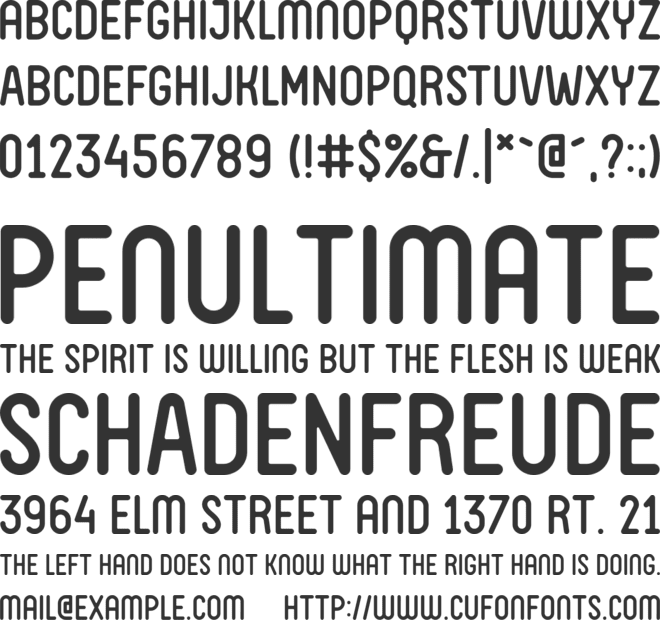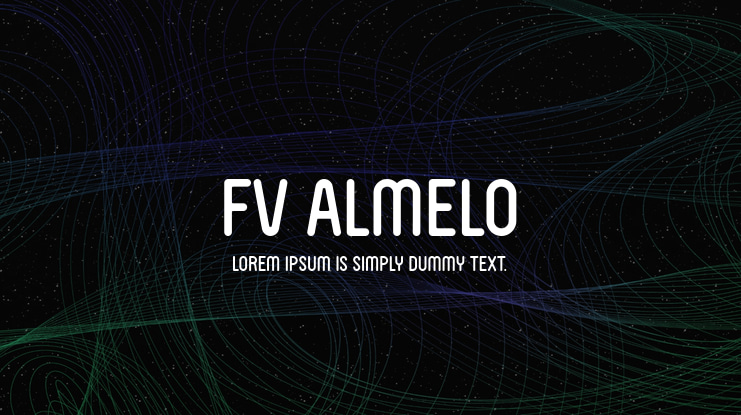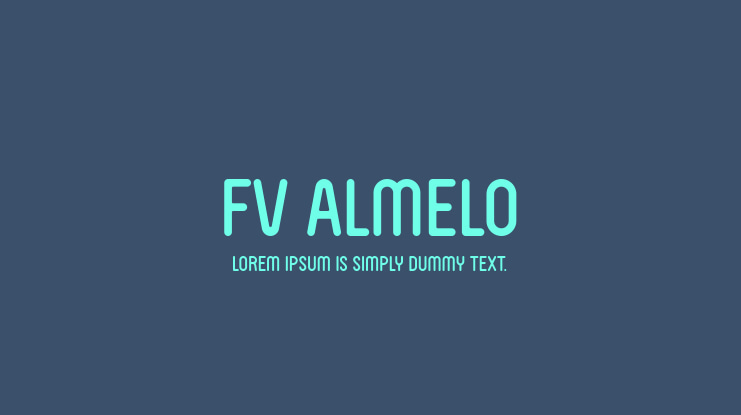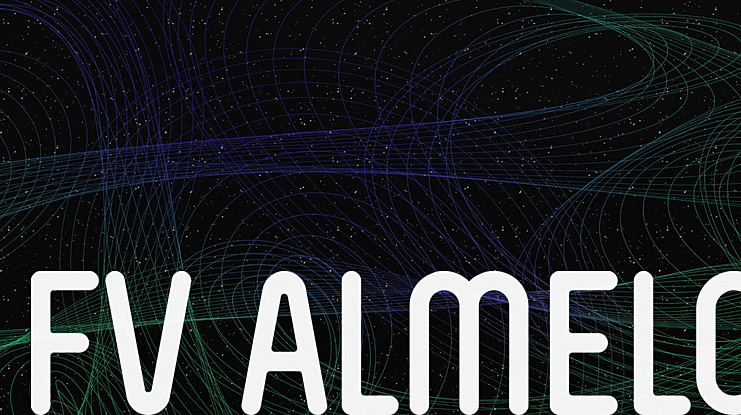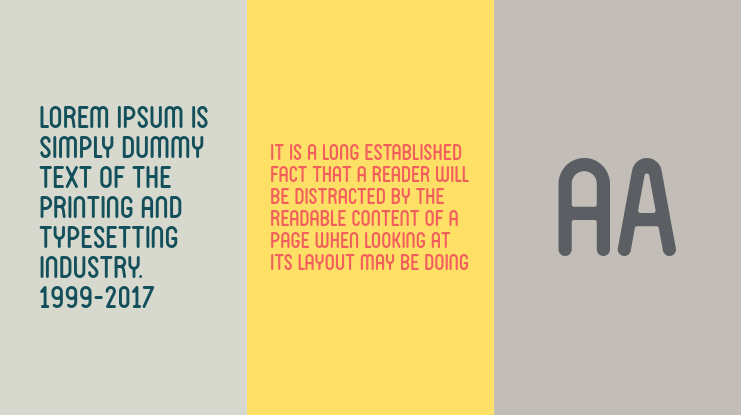
FV Almelo Font Family
Floris Voorveld
This is an all caps condensed rounded font. The capitals in this font are the standard glyphs, when a character has an alternative you'll find it using lower case.